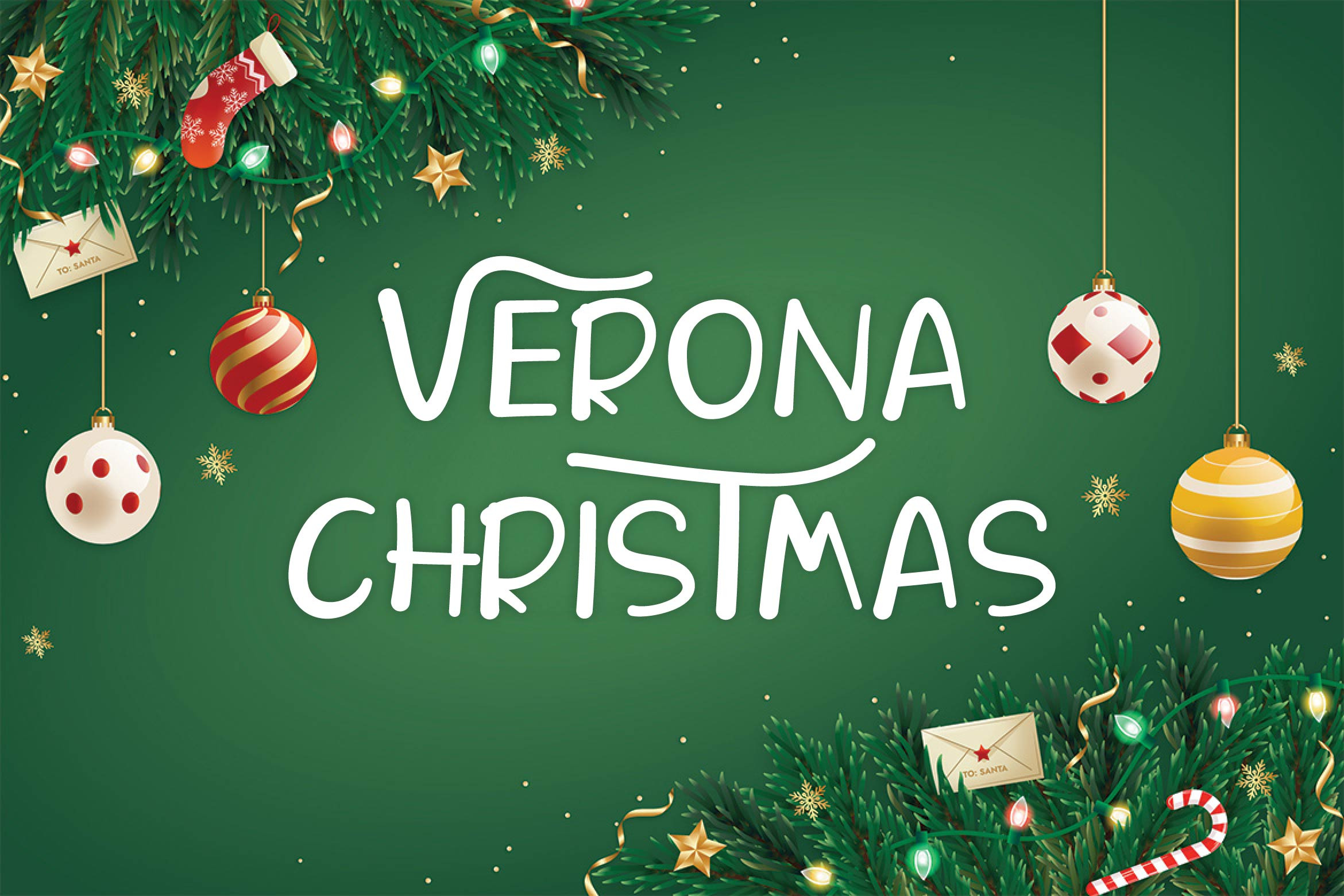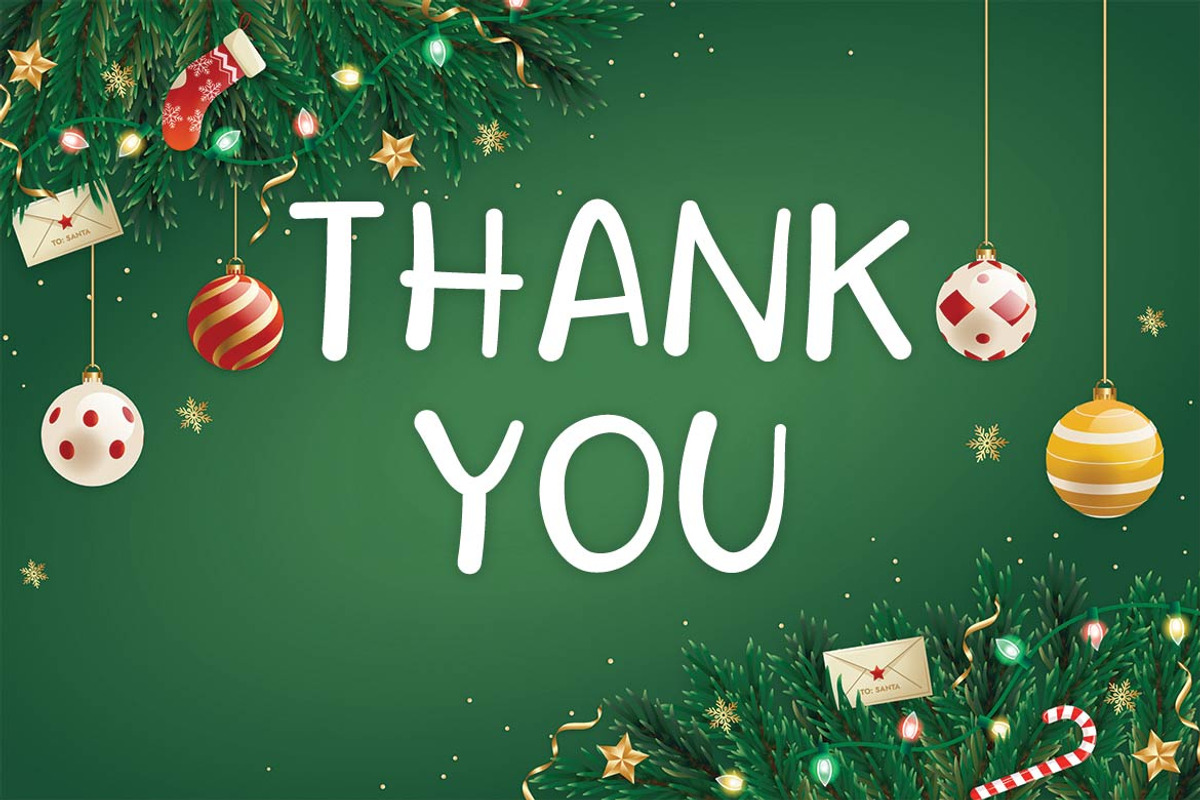
Verona Christmas Handwritten Font
Verona Christmas is a joyful handwritten font created to capture the warmth, coziness, and happiness of the holiday season. With its natural handwritten strokes, soft curves, and playful rhythm, Verona Christmas brings a friendly and heartwarming feel to any festive design.